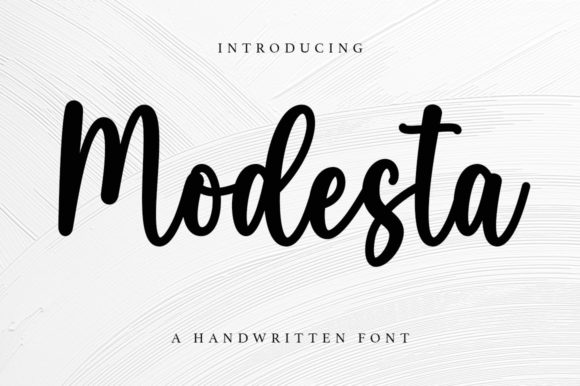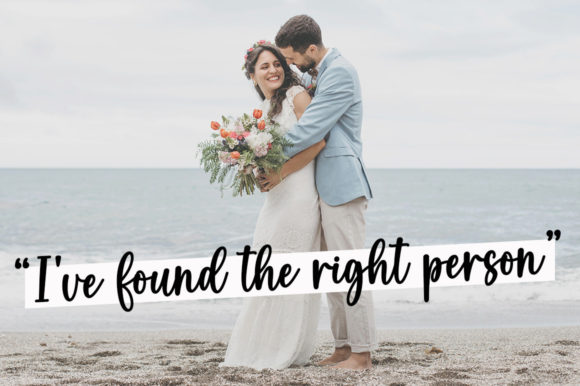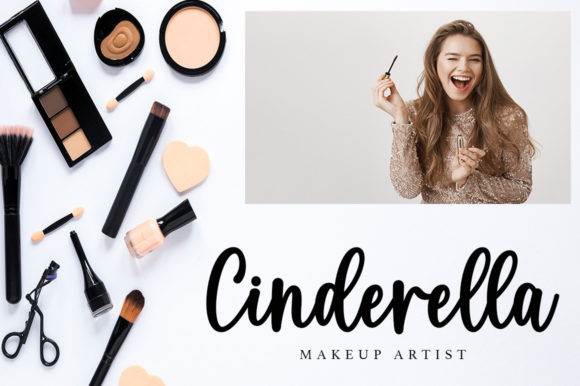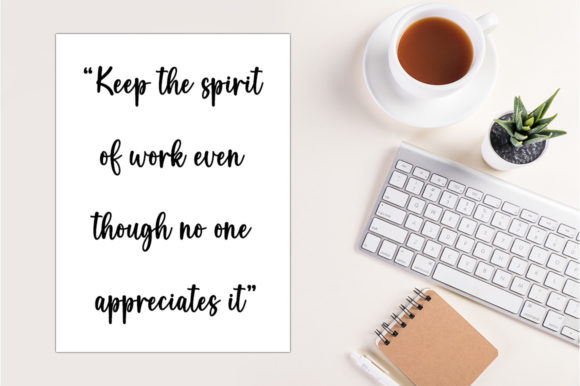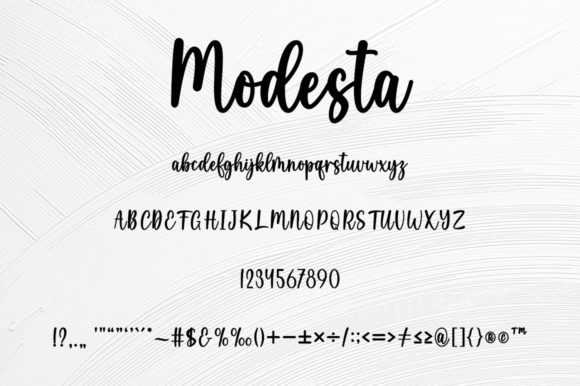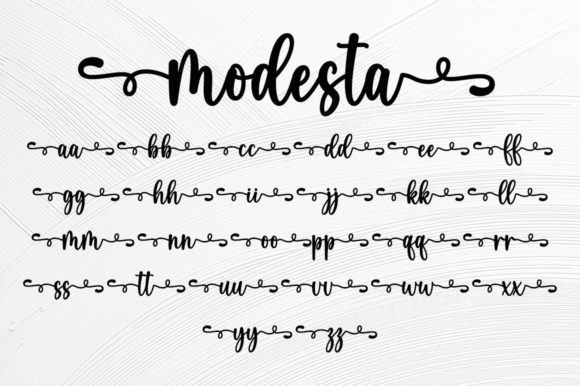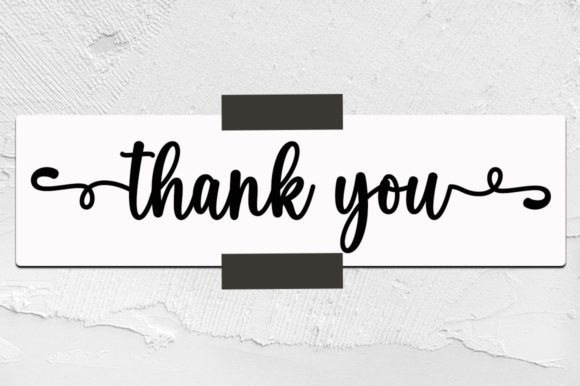
Modesta Font
About Modesta Font
“Modesta” is presented as a flowing handwritten font characterized by an elegant touch, making it ideal for various creative projects. Additionally, it is highlighted that “Modesta” is PUA encoded, ensuring easy access to all the glyphs and swashes for enhanced customization.
The description of “Modesta” as flowing and handwritten suggests a typeface with a natural and organic feel, conveying a sense of fluidity and ease. The emphasis on elegance implies a touch of sophistication, making it suitable for projects that require a refined and stylish aesthetic.
The inclusion of PUA encoding is emphasized as a feature that enhances the font’s accessibility, providing designers with the ability to easily access various design elements and swashes. This capability contributes to the font’s flexibility, allowing for personalized and customizable typographic compositions.
In summary, “Modesta” is presented as a flowing handwritten font with an elegant touch, suitable for a variety of creative projects. The PUA encoding adds to its versatility, making it accessible for designers seeking a typeface that combines natural flow with a touch of sophistication in their design work.